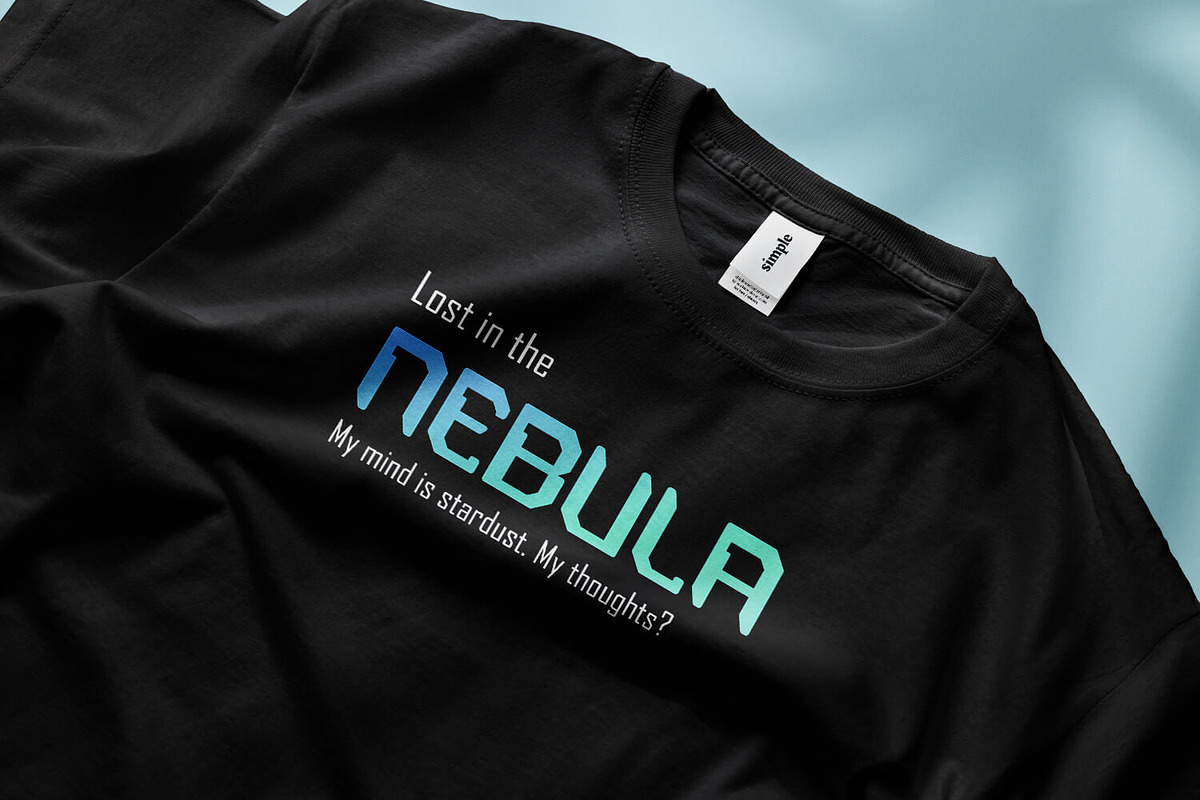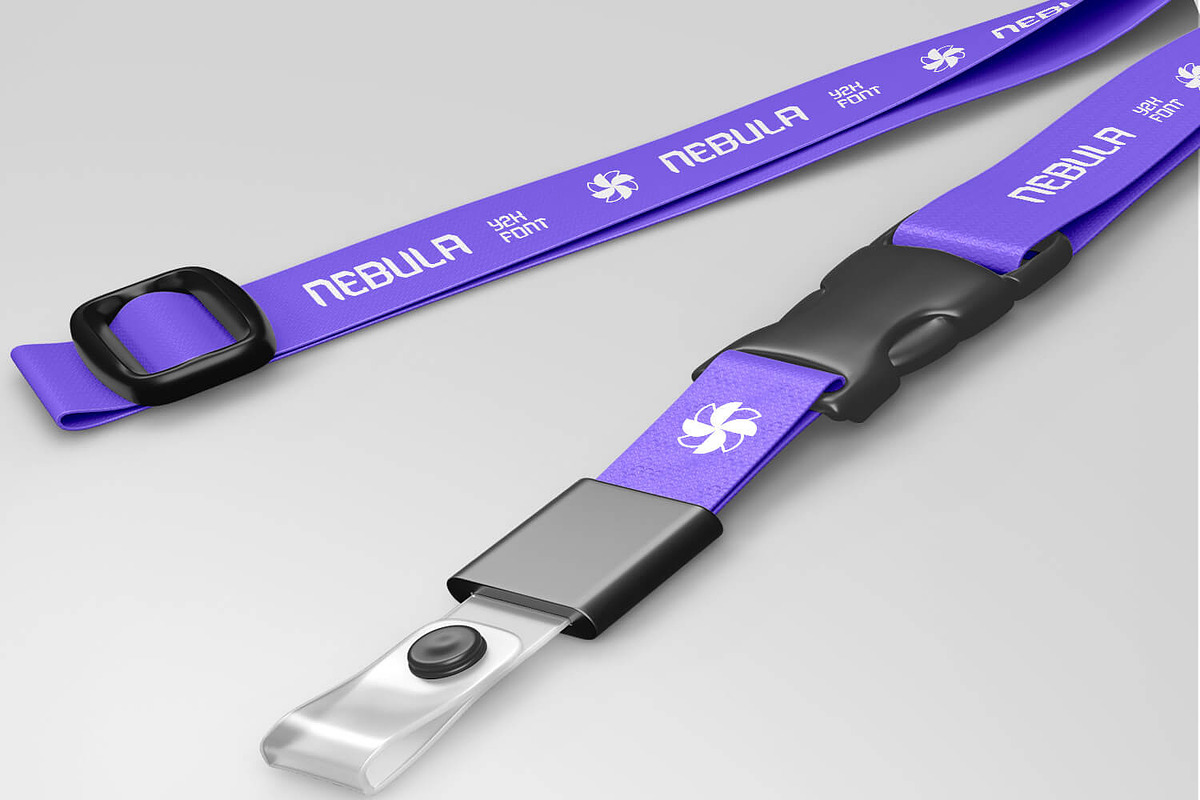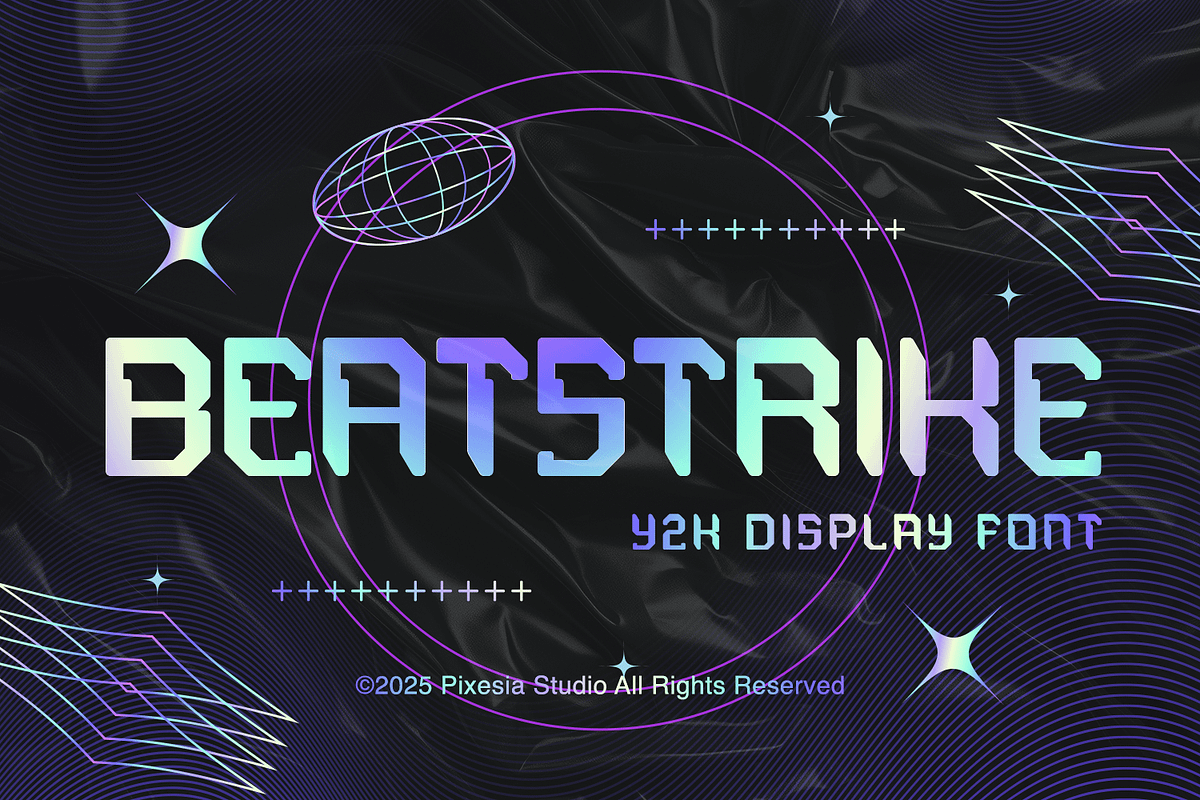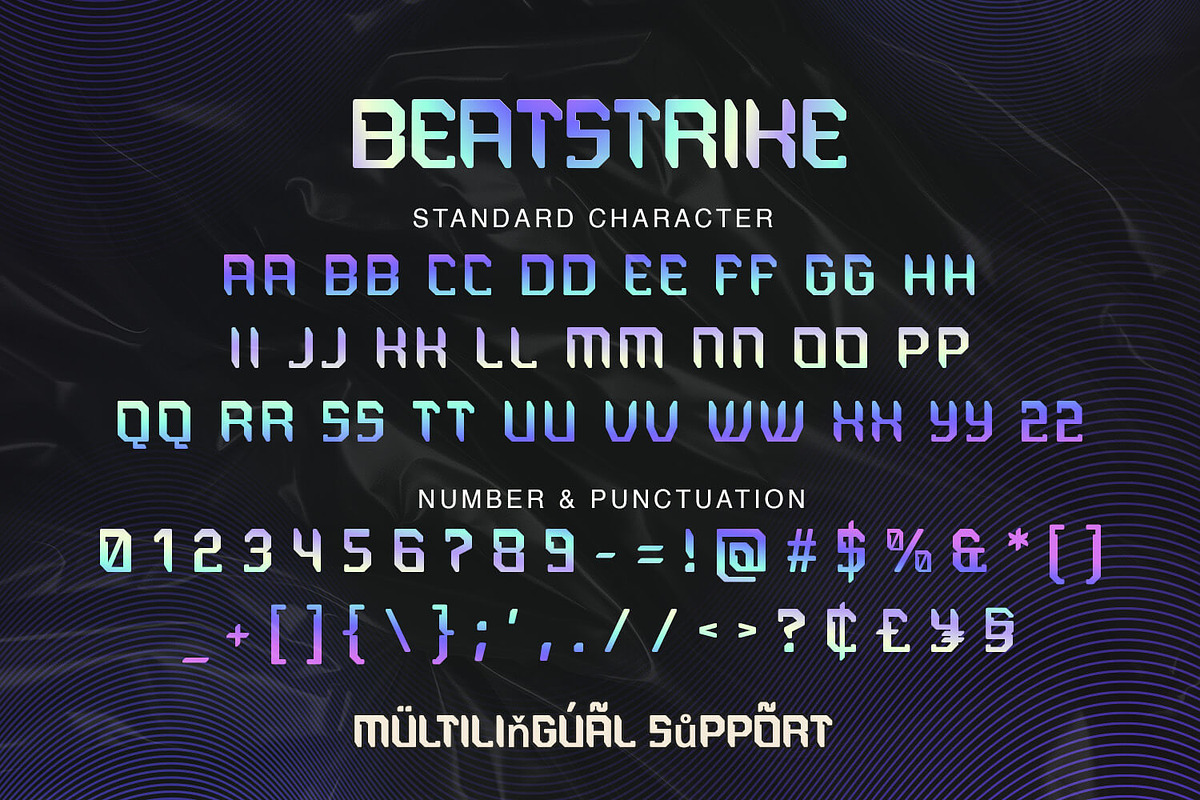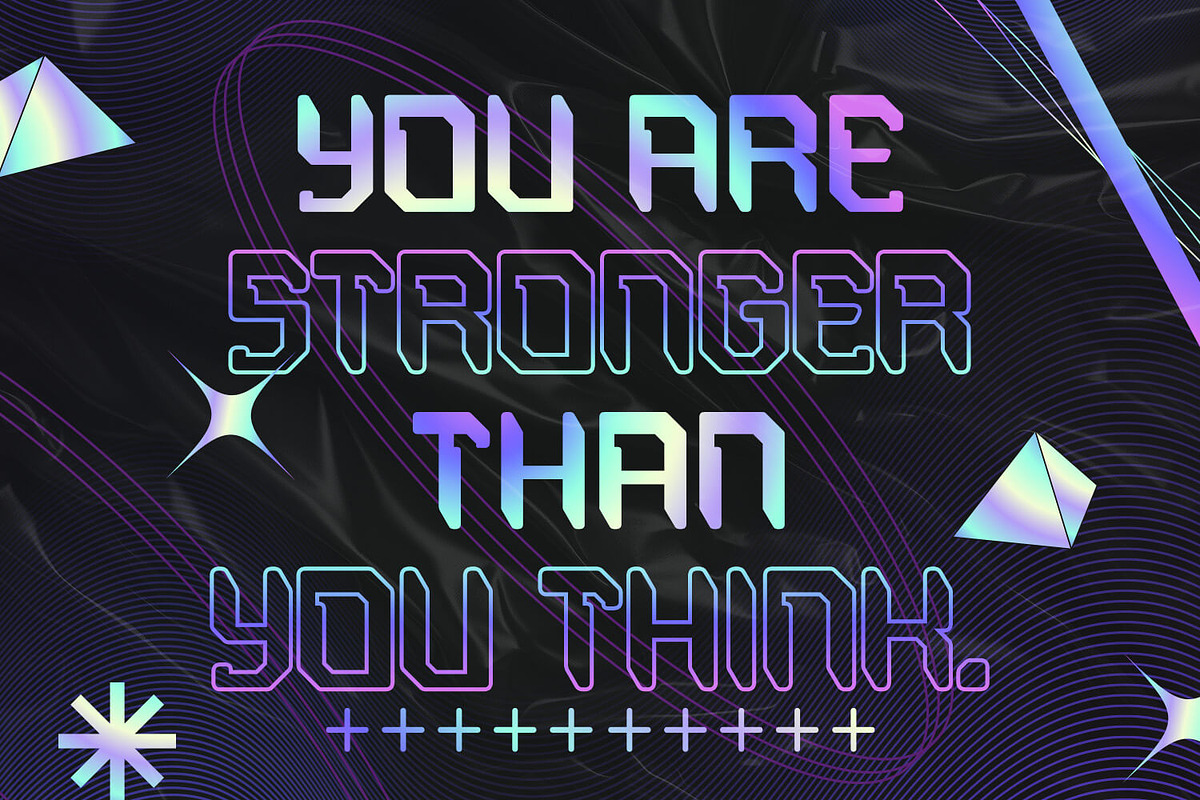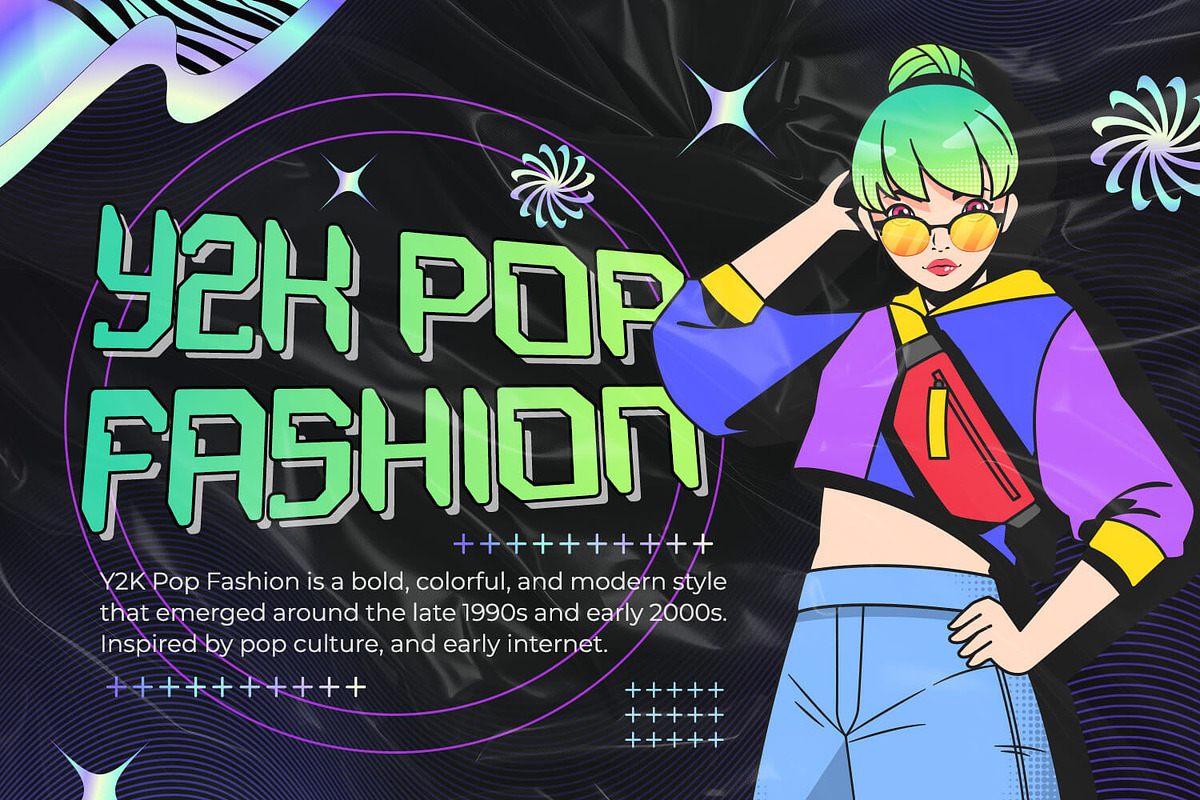
Beatstrike – Y2K Display Font
Introducing Beatstrike – Y2K Display Font
Beatstrike is a bold and futuristic Y2K display font, infused with nostalgic vibes and a digital edge. Inspired by early 2000s aesthetics, this typeface features sharp angles, geometric forms, and tech-savvy flair — perfect for music artwork, rave flyers, posters, gaming visuals, and anything that needs a hit of retro-futuristic energy.
Whether you're designing for cyber culture or modern digital scenes, Beatstrike brings a vibrant, energetic look that demands attention.
Take your visuals back to the future with Beatstrike!